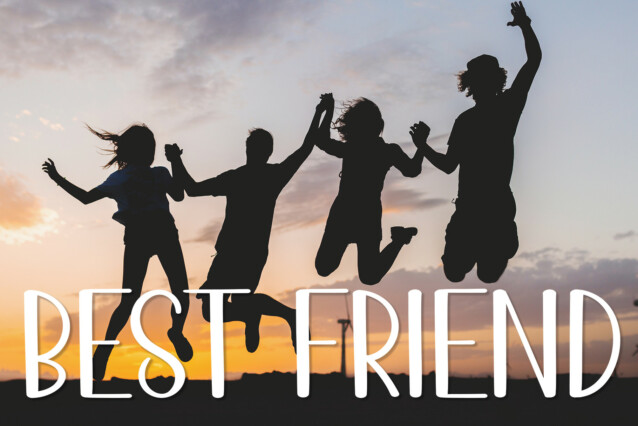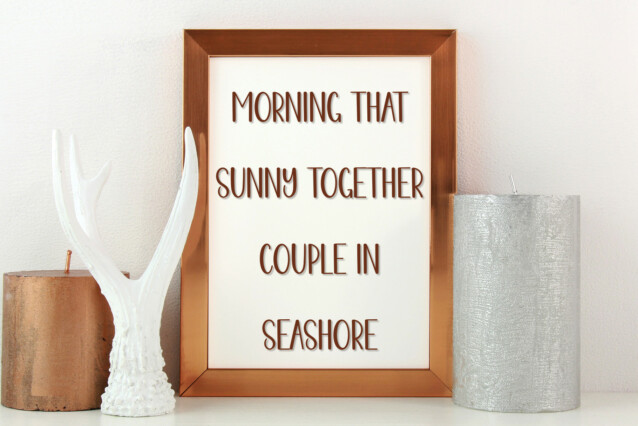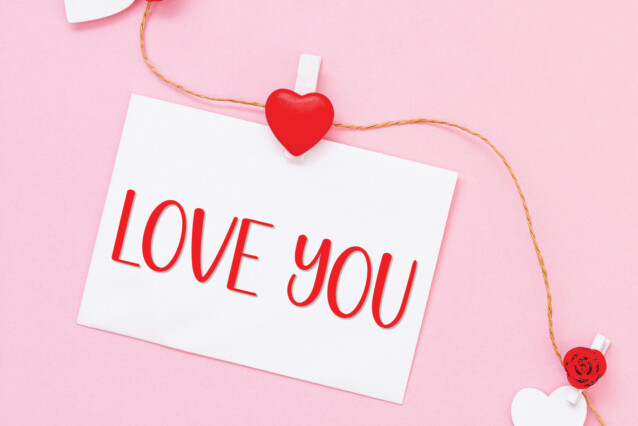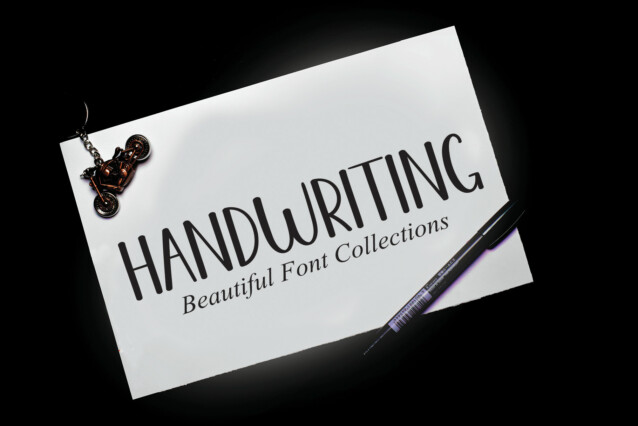
Lunar Display Font
Lunar Display Font is a creative handmade font. Grab this lovely handwritten typeface and add it for wall displays, wedding invitations, social media post logos, advertisements, product packaging, product designs, labels, photography, watermarks, invitations, or stationery.